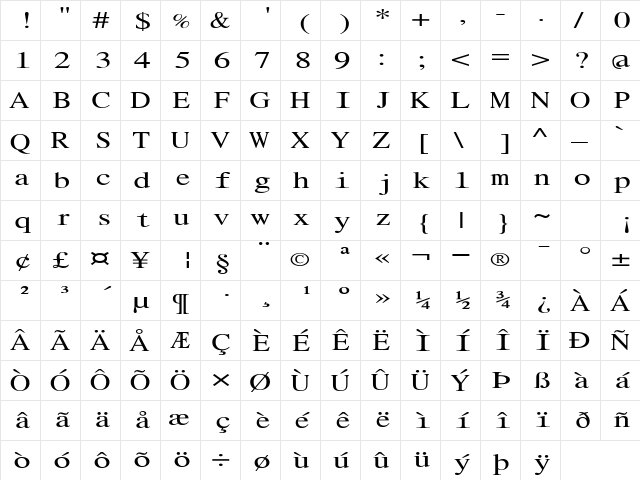
RomanMonoExtended Regular
Design Context for RomanMonoExtended Typeface
RomanMonoExtended uses fixed-width spacing throughout, giving it the structured, systematic character associated with coding environments and technical documentation.
Well-suited to data-driven dashboards, coding tutorials, and any design that wants to reference the world of programming.
Pro Tip: Use RomanMonoExtended with slightly increased line-height for extended reading — fixed-width spacing can feel dense in longer passages without extra breathing room.